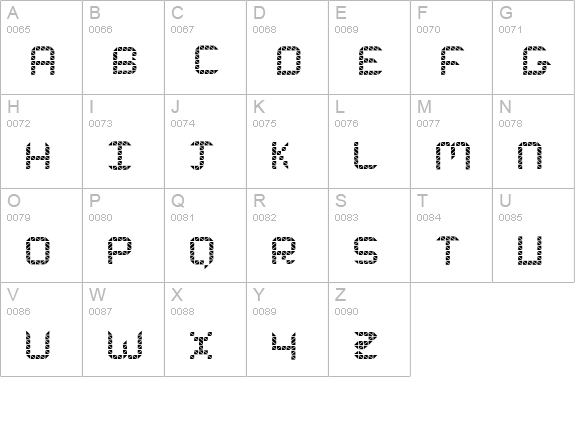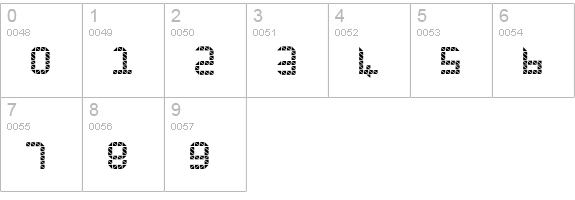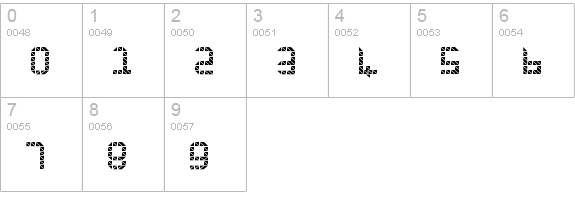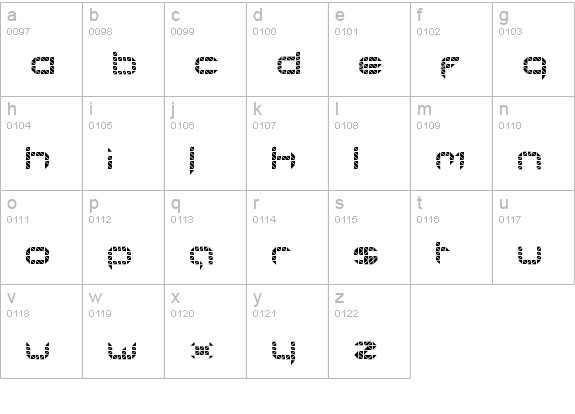
SidesAndCorners-One Font Details
SidesAndCorners-One is a visually striking and uniquely designed font that is sure to make a bold statement in any project. With its intricate and eye-catching details, this font is perfect for adding a touch of creativity and sophistication to your designs. What sets SidesAndCorners-One apart is its versatility - it can be used for a wide range of purposes, from logos and branding to headlines and social media graphics. Its clean lines and sharp edges give it a modern and contemporary look, while the subtle curves and decorative corners add a touch of elegance and refinement. This font is freely available to download at FontsMarket.com, making it accessible to designers and creatives of all levels. Whether you're a professional designer or just starting out, SidesAndCorners-One offers endless possibilities for unleashing your creativity. With its extensive character set, including uppercase and lowercase letters, numerals, punctuation marks, and special symbols, this font provides the flexibility to create visually stunning designs that stand out from the crowd. SidesAndCorners-One is designed with meticulous attention to detail, ensuring that each character is perfectly balanced and harmonious. Its legibility and readability make it suitable for both large-scale designs and small-scale text. So, if you're looking for a font that combines modernity with elegance, SidesAndCorners-One is the perfect choice. Download it for free at FontsMarket.com and let your creativity soar.